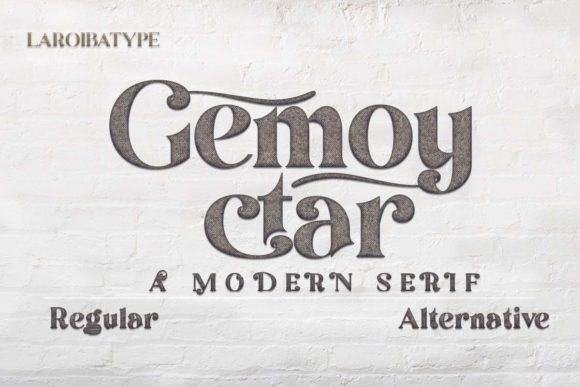
Are you ready to give your book titles the attention they deserve? Look no further than Gemoy Ctar, the captivating serif font that will transform your covers into works of art. Expertly designed by Laroibatype, Gemoy Ctar is a font of exquisite detail and undeniable boldness. With its meticulously crafted curves and sharp edges, this font will add an air of sophistication and allure to any title.
Whether you're writing a captivating novel, a thought-provoking non-fiction, or a thrilling memoir, Gemoy Ctar has the power to elevate your words. Its versatility knows no bounds, effortlessly complementing any genre or theme. Imagine your book standing out on shelves, its title emblazoned in the striking lines of Gemoy Ctar, inviting readers to delve into your world.
This font is not just a collection of letters; it's an invitation to let your creativity soar. With Gemoy Ctar, you can craft titles that whisper secrets, ignite imaginations, and leave an unforgettable mark on your readers' minds. It's the perfect font for those who dare to be bold, to make a statement, and to leave a lasting impression.
Don't settle for ordinary fonts that fade into the background. Embrace the power of Gemoy Ctar and watch your book titles transform into captivating masterpieces that will entice readers and leave them longing for more.